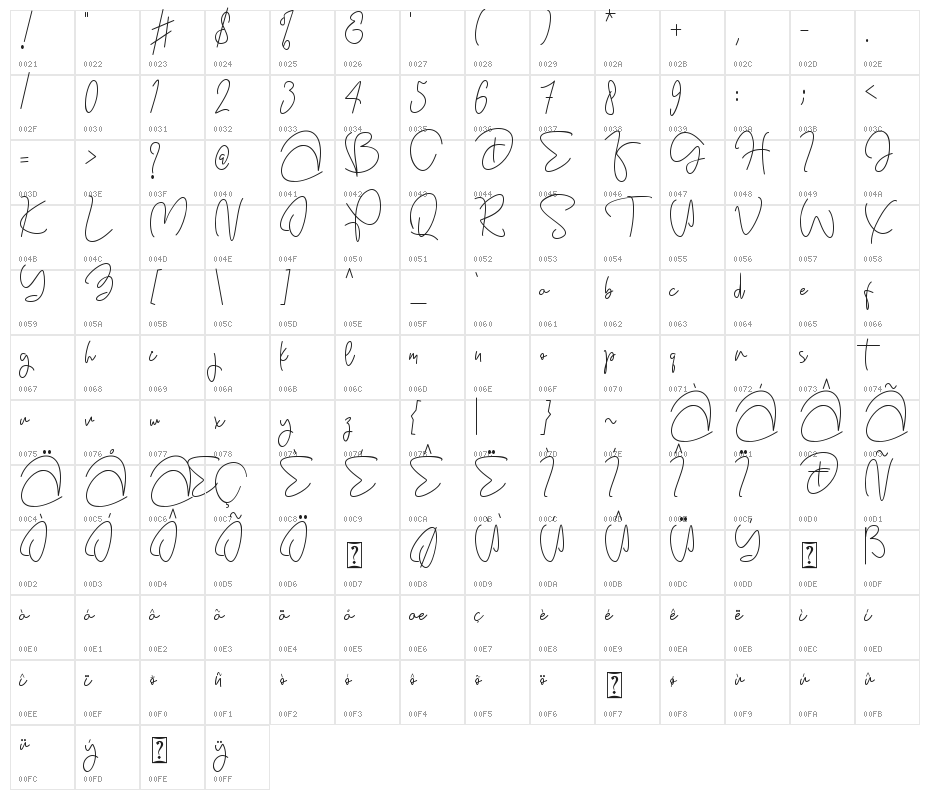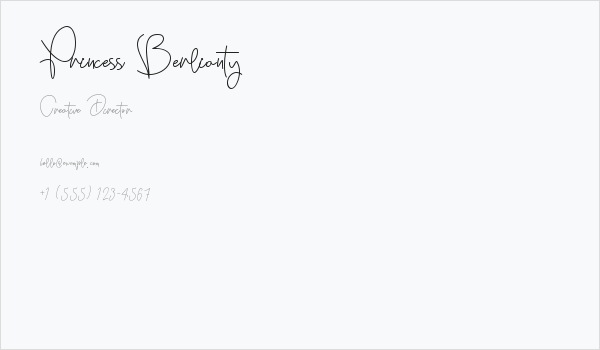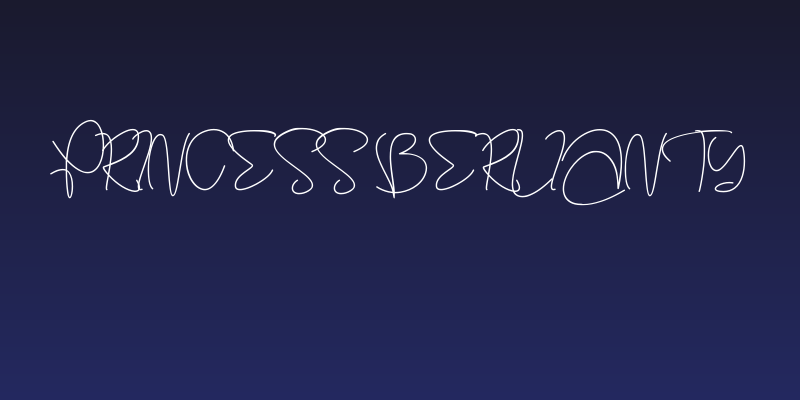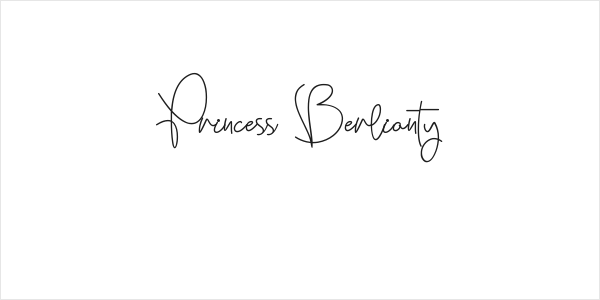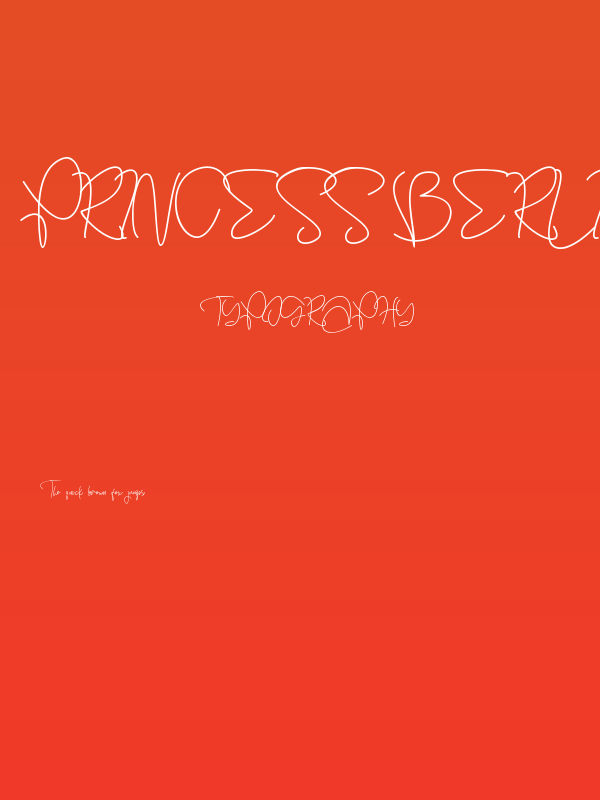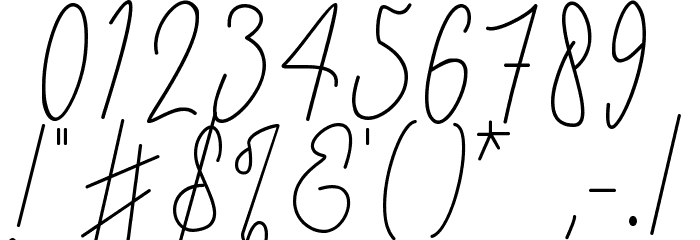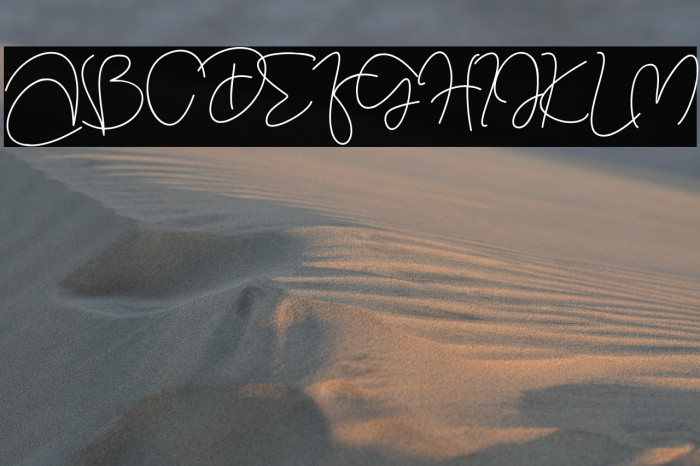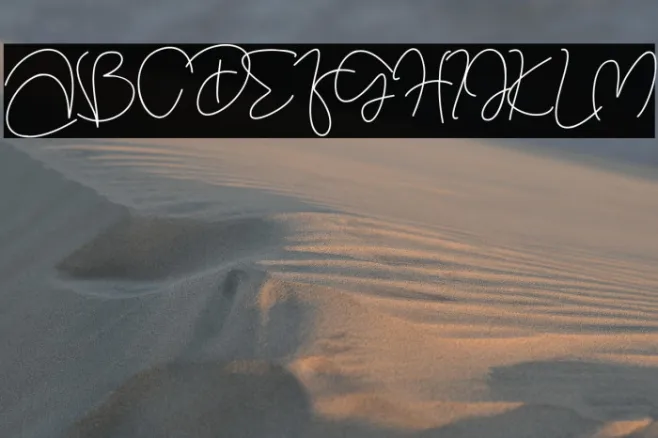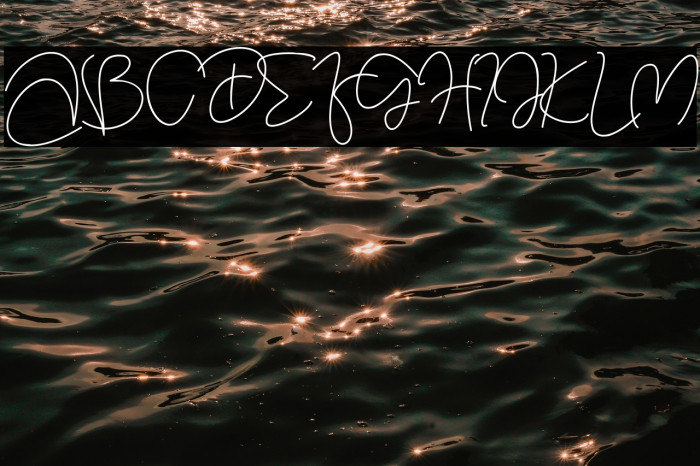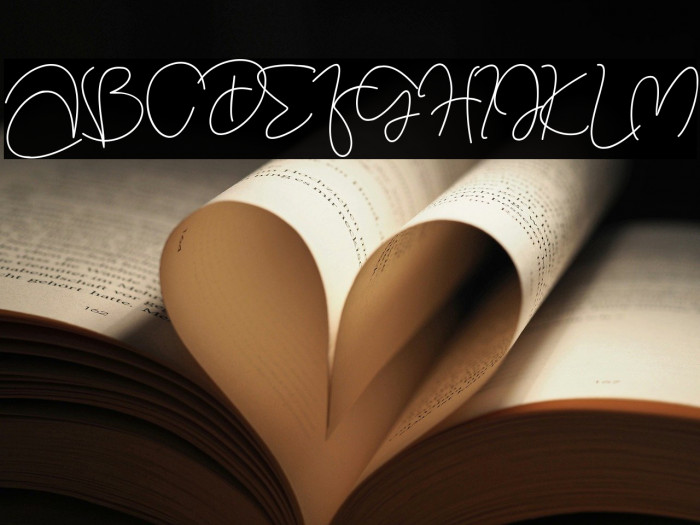
Princess Berlianty Font
Princess Berlianty Description
This font features an elegant and flowing script style, characterized by its smooth, continuous strokes and graceful curves. The uppercase letters exhibit a sophisticated flair with exaggerated loops and swirls, while the lowercase letters maintain a more restrained yet equally stylish appearance. The numerals and special characters are crafted with the same attention to detail, ensuring a cohesive look across all elements. The font's overall aesthetic is both modern and timeless, making it suitable for a variety of design applications. Its delicate lines and artistic flair lend a sense of refinement and elegance, perfect for projects that require a touch of sophistication.
| Overall Style | Elegant, Modern |
| Proposed Projects | Ideal for wedding invitations, luxury branding, elegant stationery, and artistic projects. |